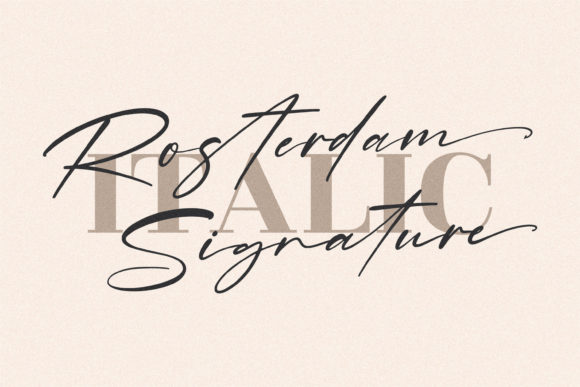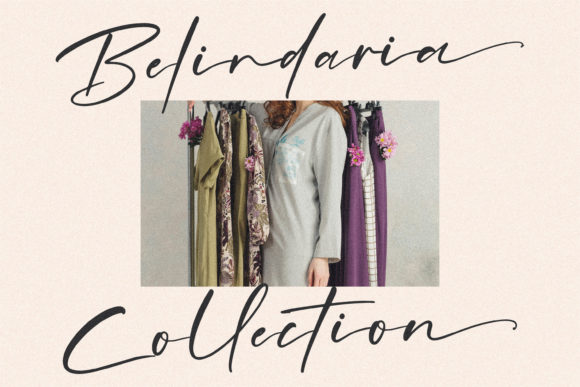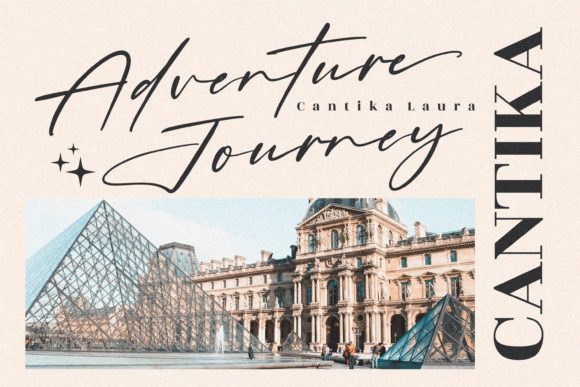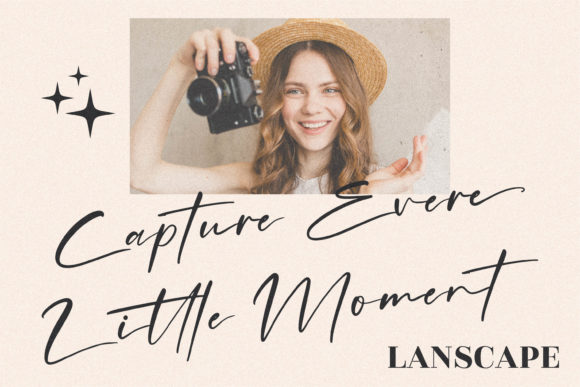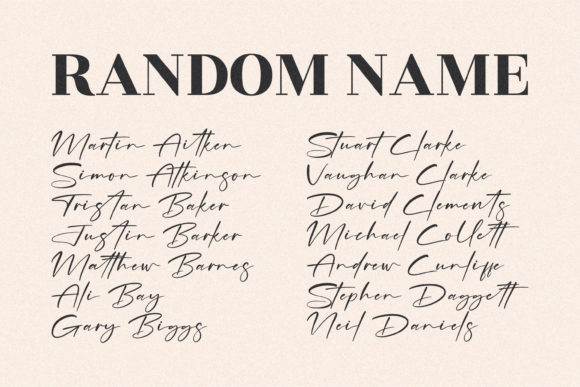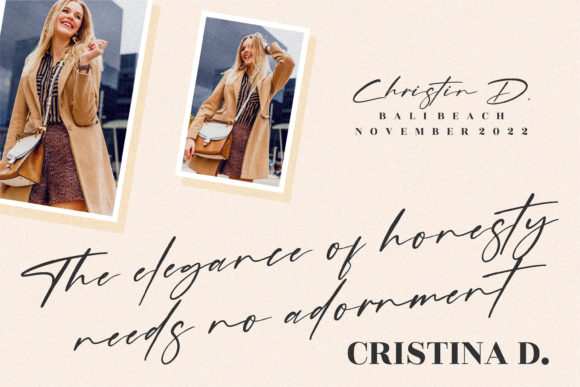
Introduction to Rosterdam Signature Font
Rosterdam Signature is a romantic and sweet calligraphy typeface with characters that dance along the baseline.
Key Features of Rosterdam Signature Font